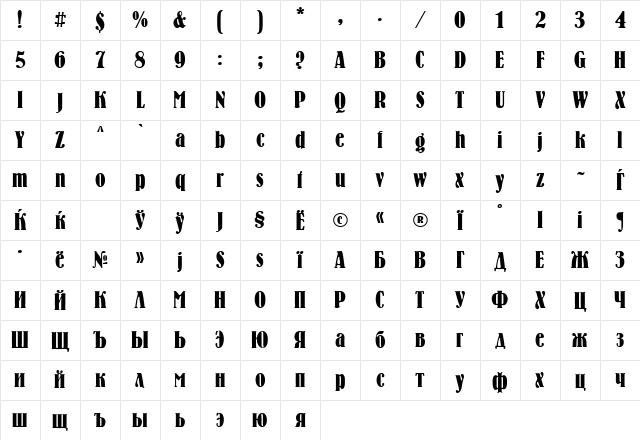
Bernhard Normal
Bernhard Family
Design Context for Bernhard
Bernhard is a composed and adaptable typeface that performs quietly and consistently across a wide range of design contexts.